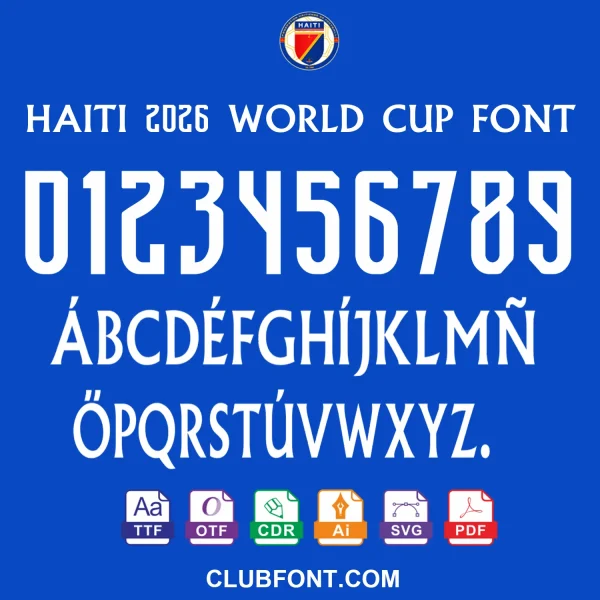
Get ready for the 2026 FIFA World Cup with the exclusive Haiti National Team Font. This package is essential for designers, sports enthusiasts, and apparel decorators looking to create authentic jerseys and fan merchandise.
This font accurately replicates the official lettering used by the Haiti National Team during the qualifiers. Whether you are customizing a Haiti 2026 Jersey Template or creating promotional banners, these files ensure pixel-perfect accuracy.